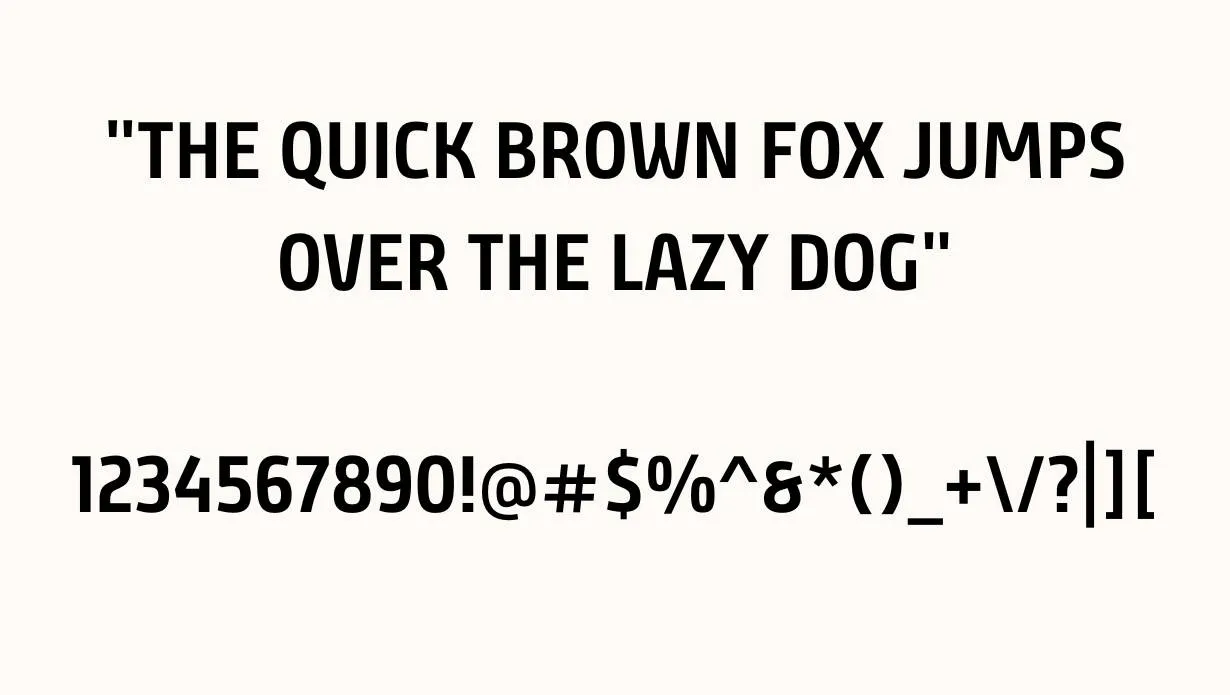
Bunday Clean Font is all about simplicity and clarity. With its clean and modern look, it’s a versatile choice for a wide array of projects, from websites and presentations to brochures and more. This font is a sans-serif font.
It includes a comprehensive set of characters, encompassing uppercase and lowercase letters, numerals, punctuation, and special characters.
| Name | Bunday Clean Font |
| Designer | Petra Niedernolte |